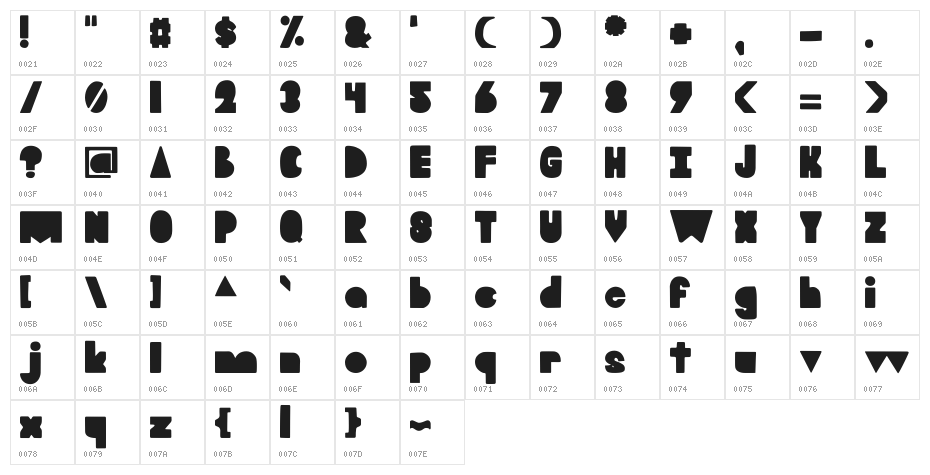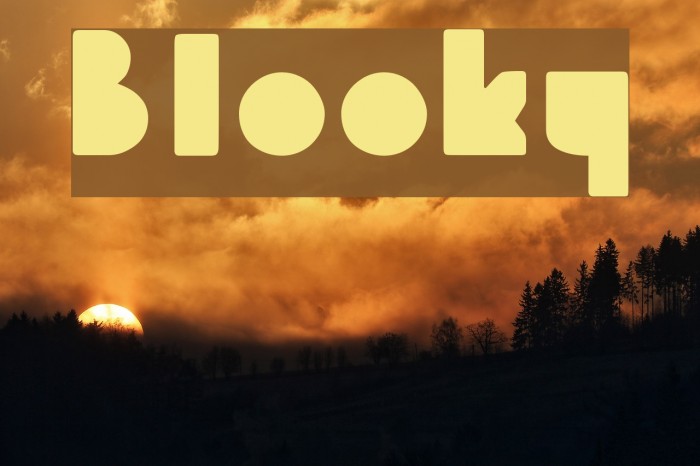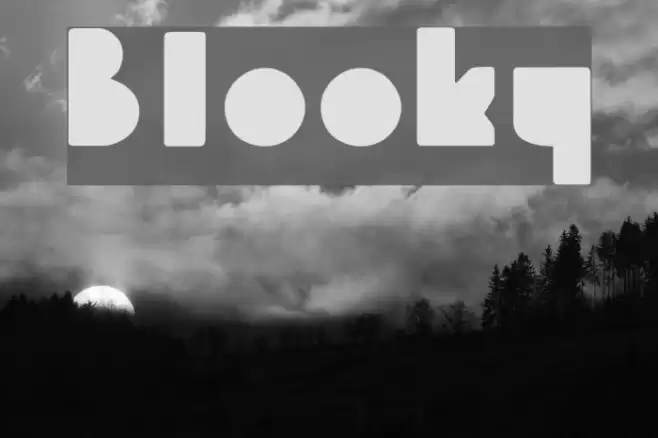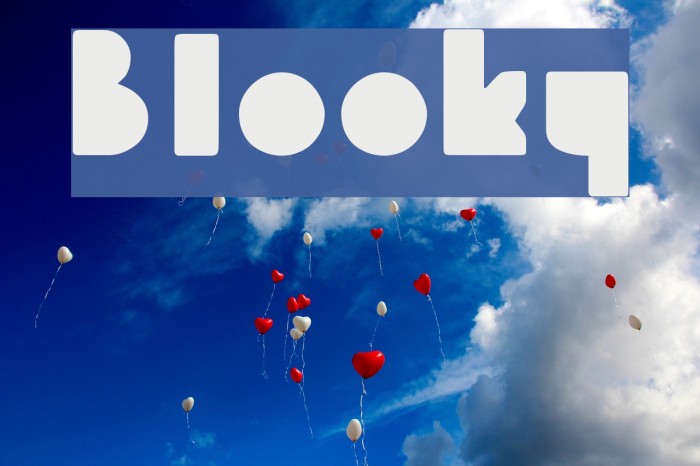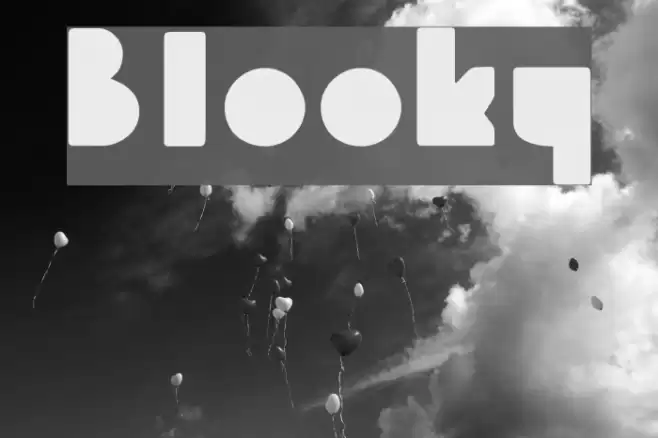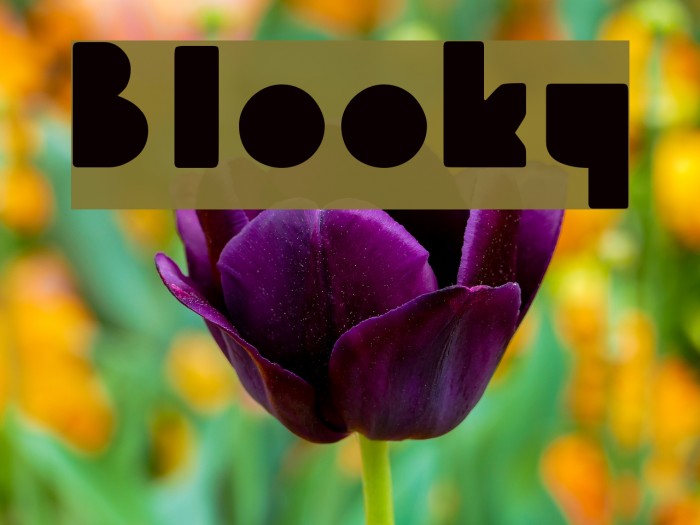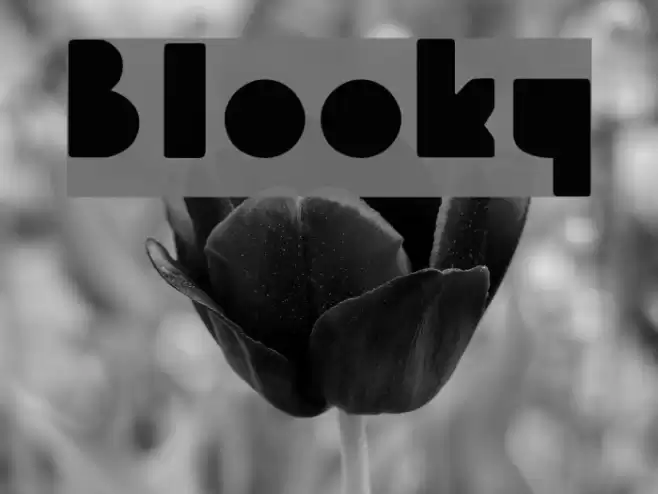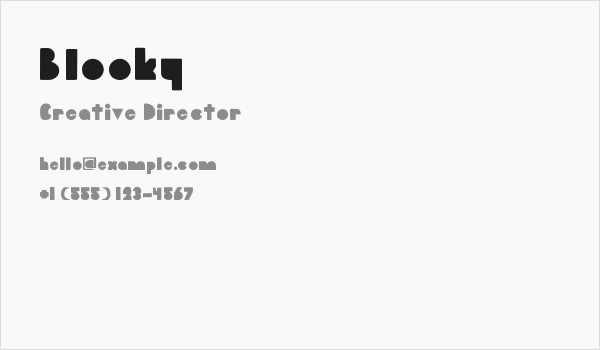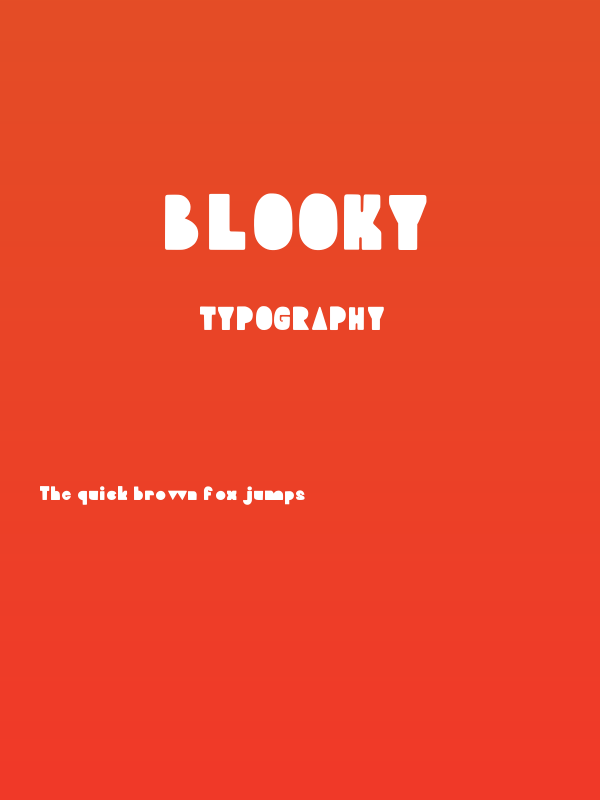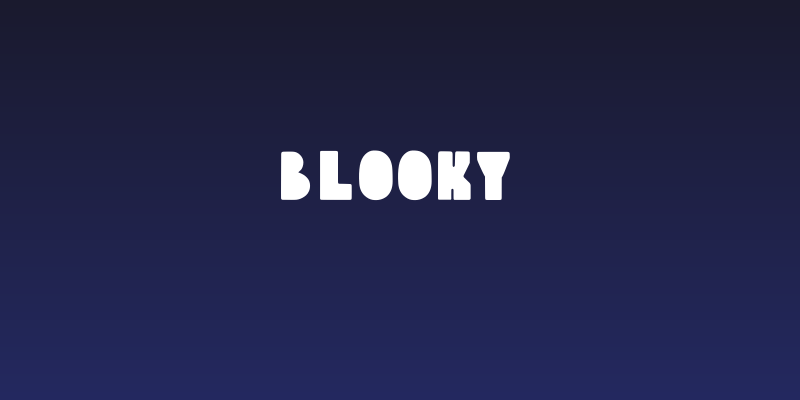
Blooky Font
Blooky Description
This font features bold, geometric shapes with a playful and quirky style. The characters are constructed with solid, block-like forms that create a strong visual impact. The uppercase letters are particularly striking, with unique shapes that vary significantly from traditional letterforms. The lowercase letters maintain the boldness but with slightly softer edges. Numbers and special characters follow the same bold and geometric design, ensuring consistency across the font. This font is ideal for projects that require a fun and eye-catching aesthetic.
| Overall Style | Playful, Quirky, Bold |
| Proposed Projects | Perfect for children's books, playful branding, posters, and creative advertising. |